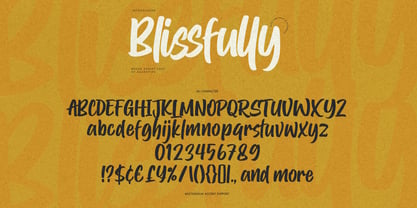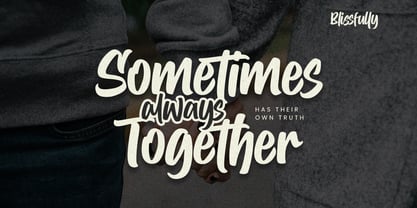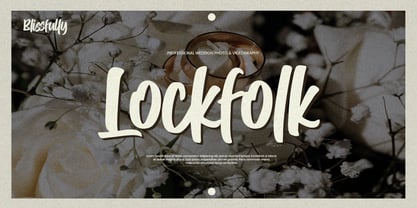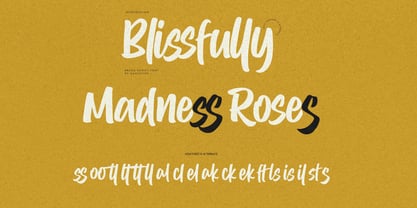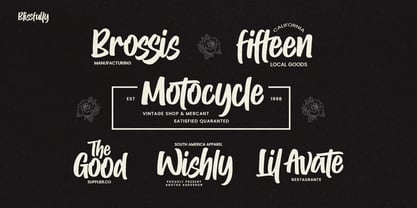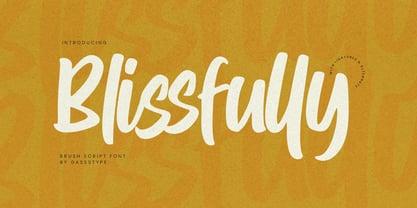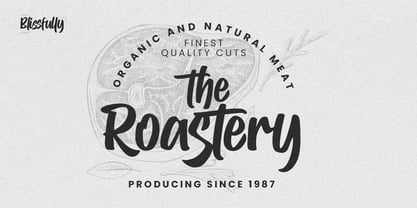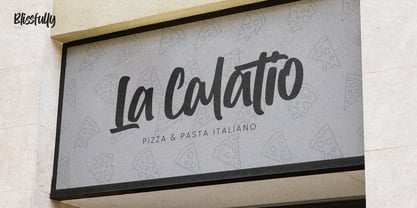
Blissfully
by Gassstype
The Blissfully Font Family was designed by Abdul Malik Wisnu and published by Gassstype. Blissfully contains 1 styles. More about this family
Introducing Font Blissfully, a beautifully crafted Brush Script Font that embodies a textured, natural style. This handwritten font is perfect for a variety of creative projects, including logos, printed quotes, invitations, cards, product packaging, headers, logotypes, letterheads, and posters. Its charming and authentic characteristics lend a relaxed, natural look to your text, making it ideal for watermarks on photography, branding, advertisements, stationery, wedding designs, labels, and special events. Elevate your designs with the unique flair of Font Blissfully, perfect for any project that requires a touch of handwritten elegance.
Designers: Abdul Malik Wisnu
Foundry: Gassstype
Blissfully